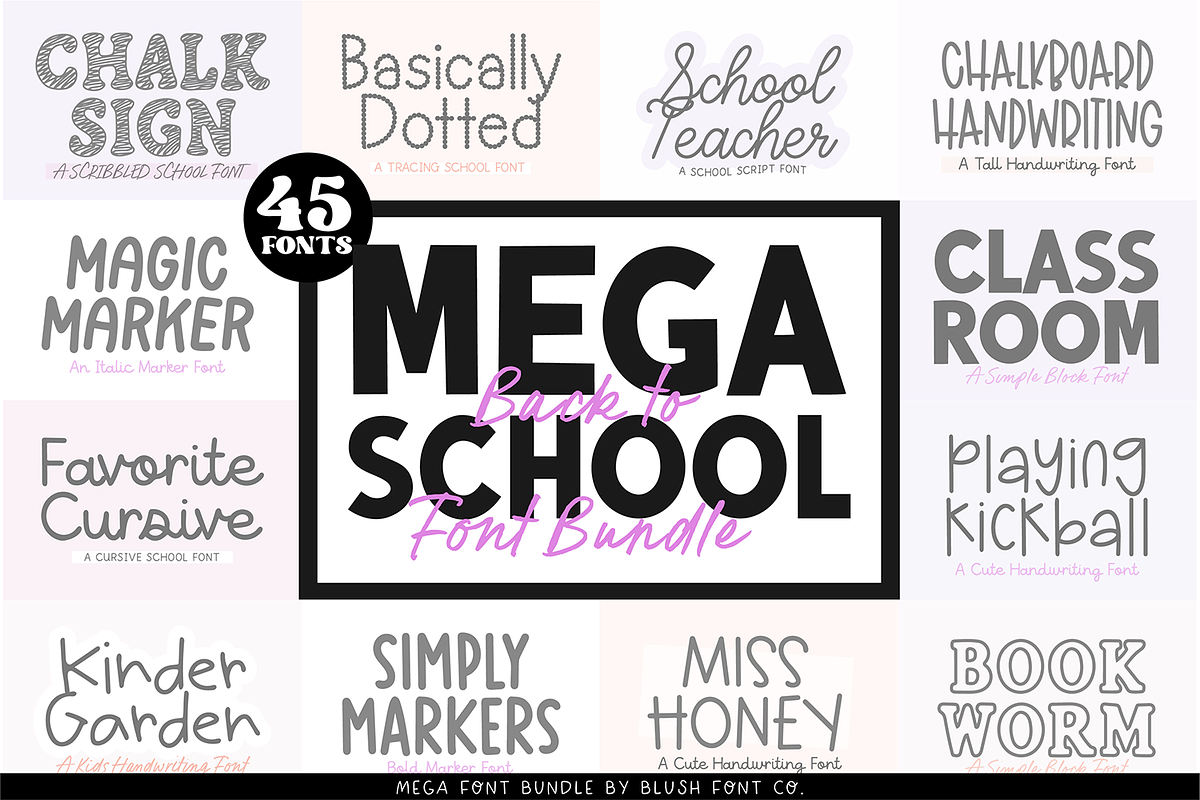
MEGA Back-To-School Font Bundle Free Download
MEGA Back-To-School Font Bundle Free Download is a fun-packed collection of playful, educational, and kid-friendly fonts—perfect for teachers, students, and designers creating learning-themed projects. This bundle includes a variety of typefaces ranging from handwritten and doodle styles to bold display fonts, ideal for classroom posters, worksheets, school branding, activity books, and more.
Whether you're designing a cheerful bulletin board, crafting educational content, or adding personality to back-to-school promotions, the MEGA Back-To-School Font Bundle Free Download has everything you need. Each font brings its own charm, ensuring your typography is engaging, age-appropriate, and full of energy.